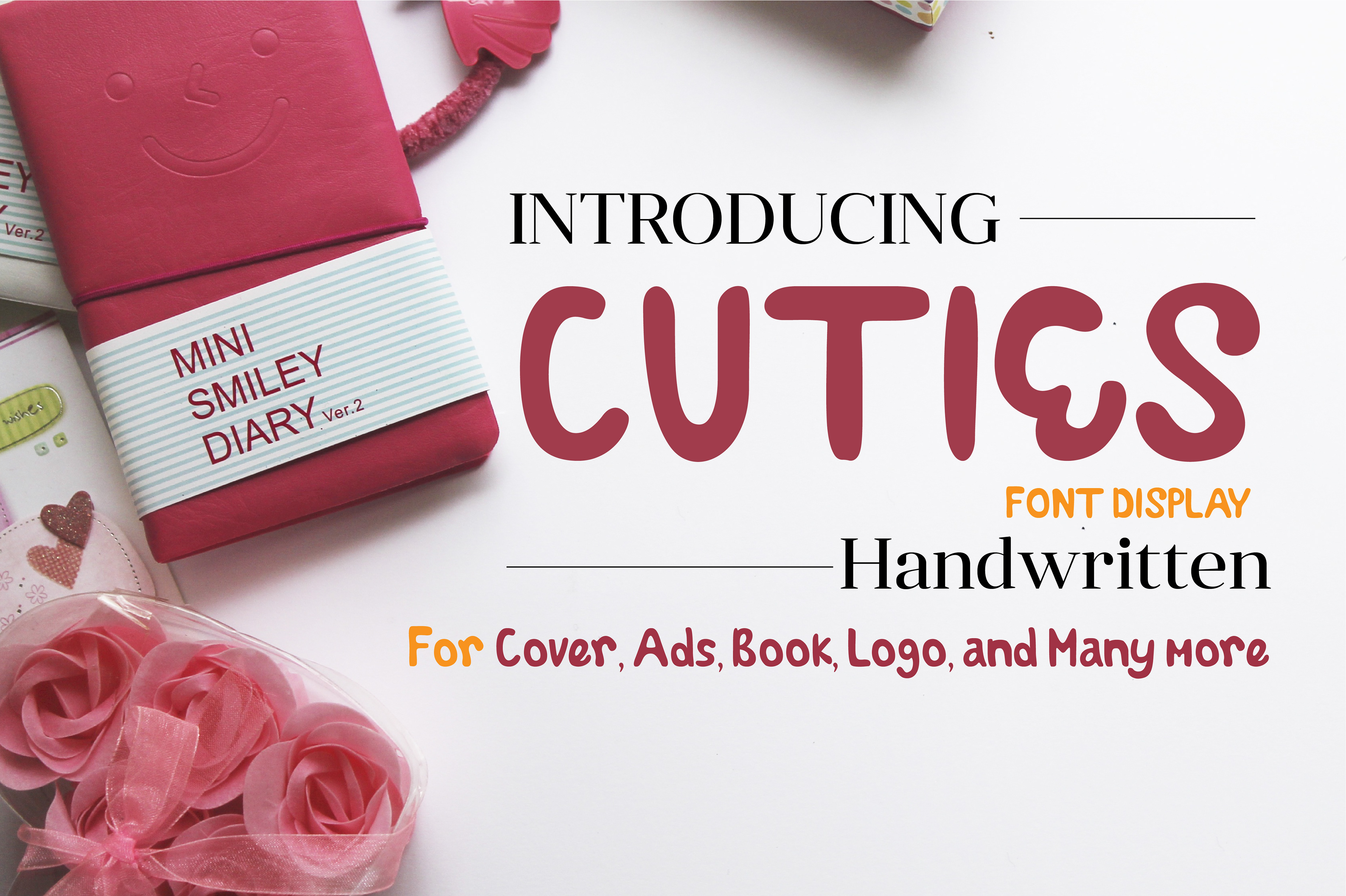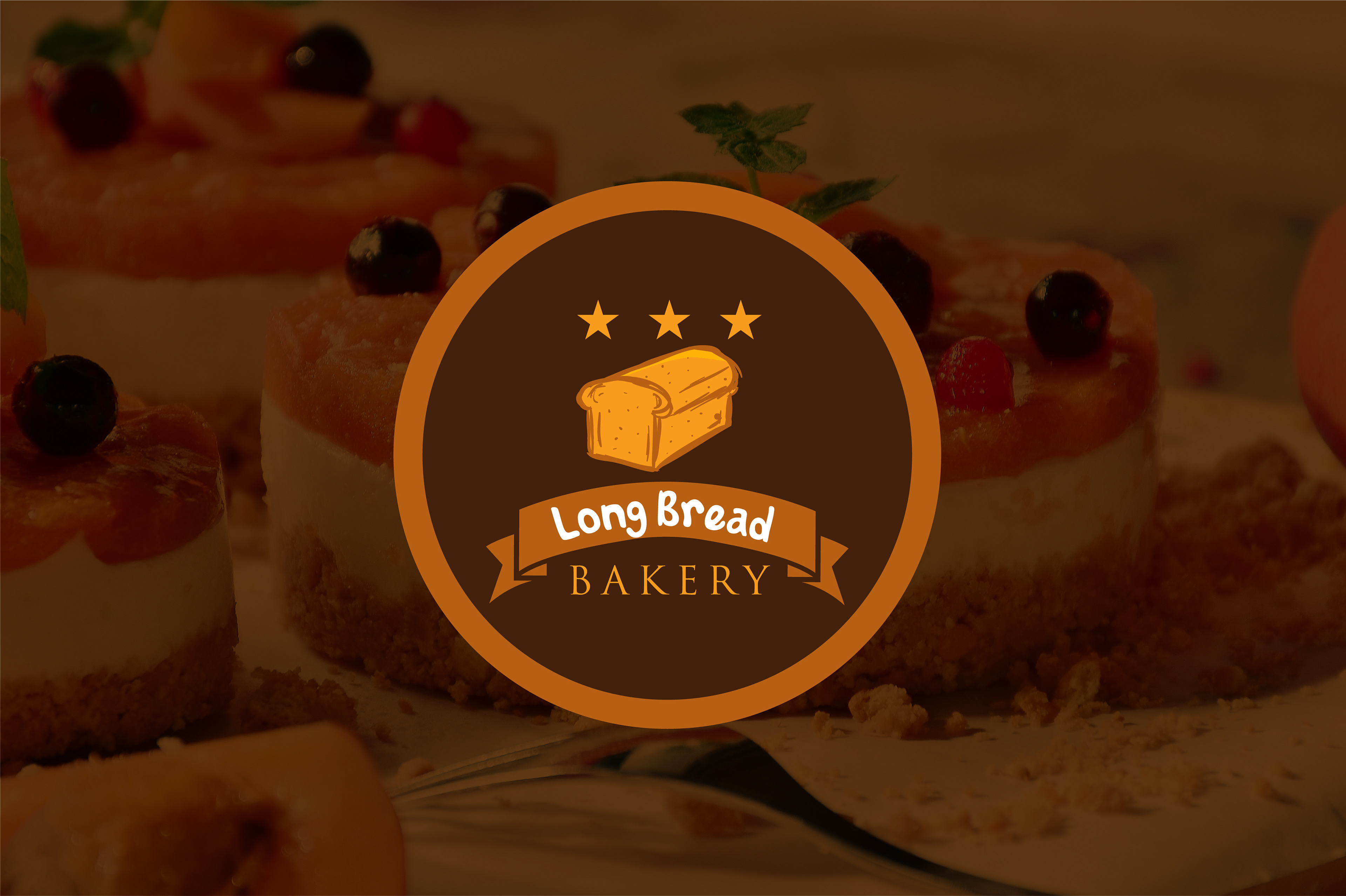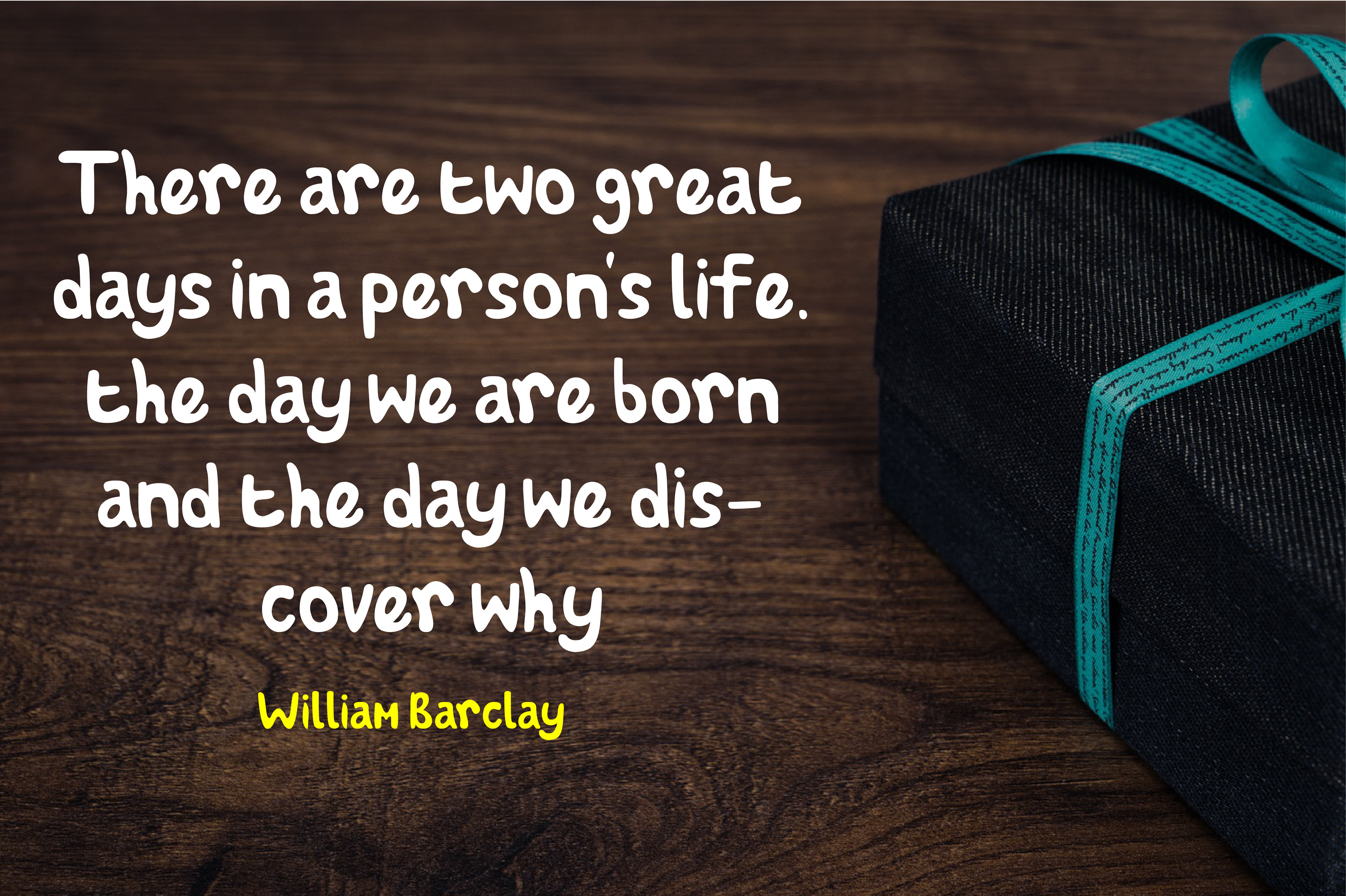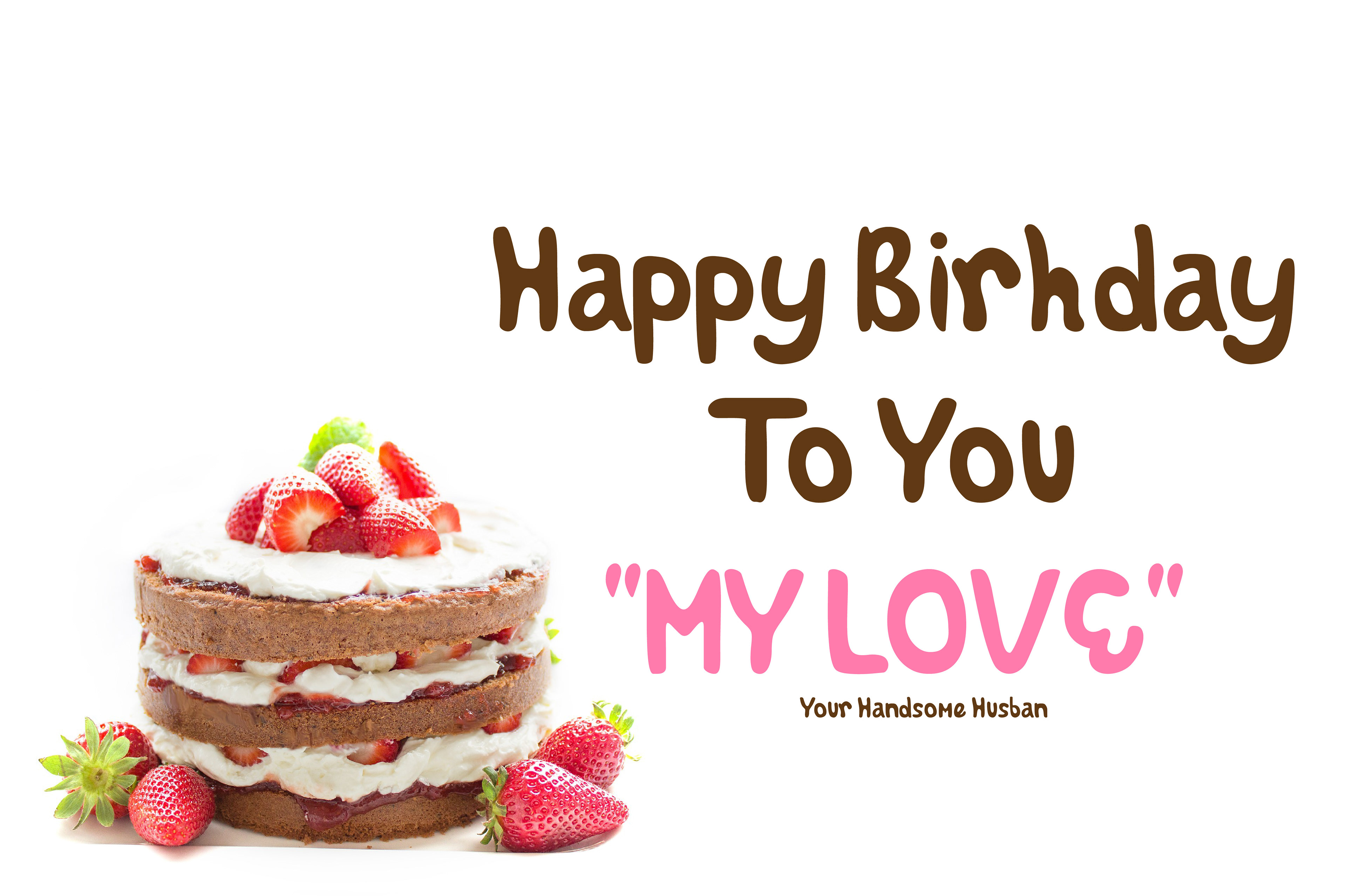
Cuties Font
Display Font Can Use For Fun Project
with handwritten style and marker
Very awesome for Food Project, Catalog, Kids, Fun, Product, Invitation, and Many more.